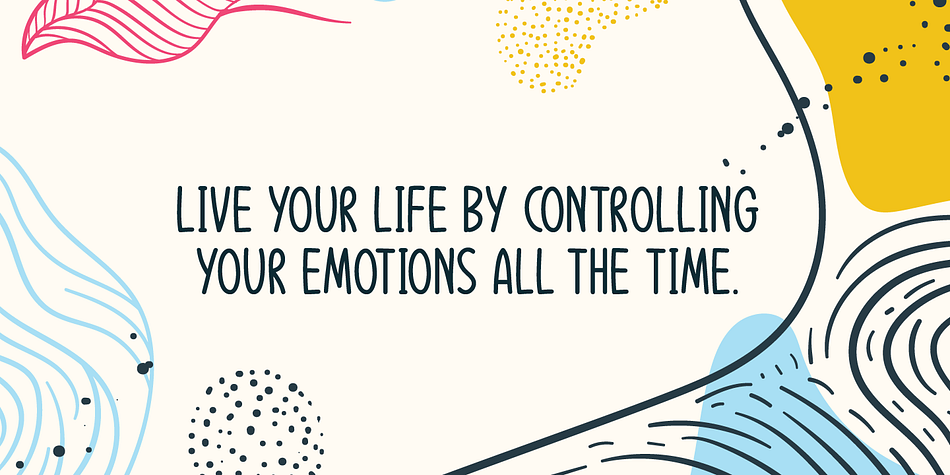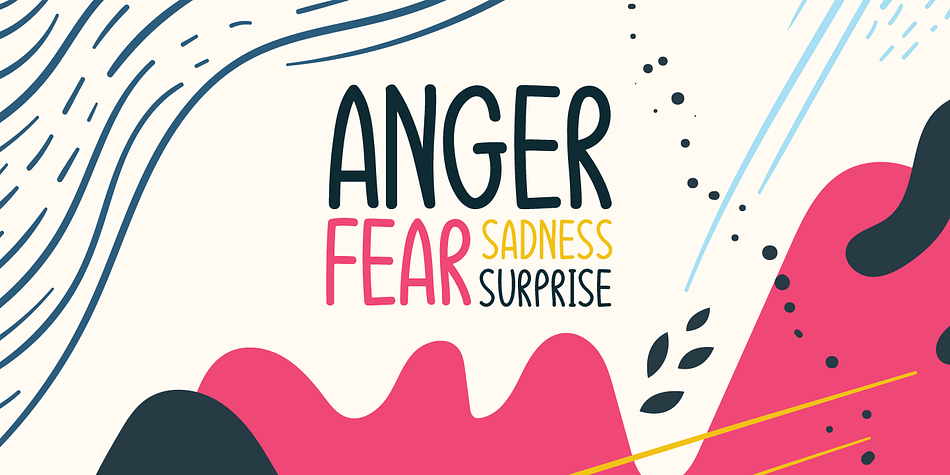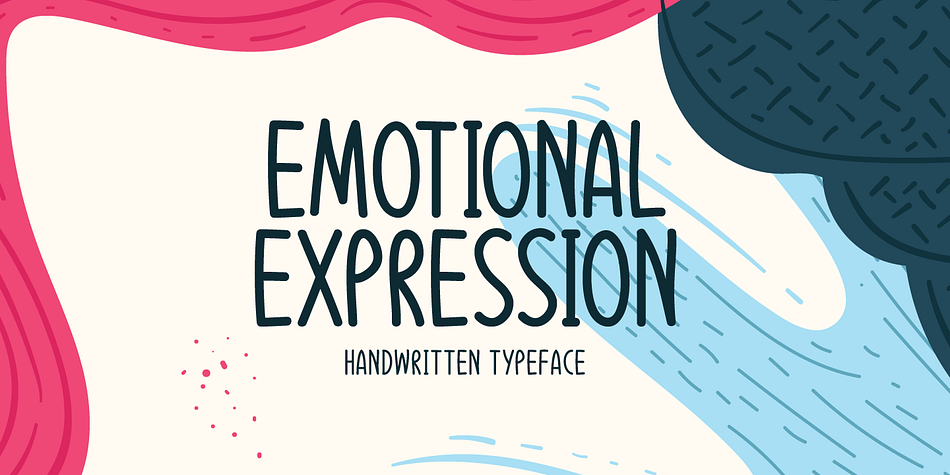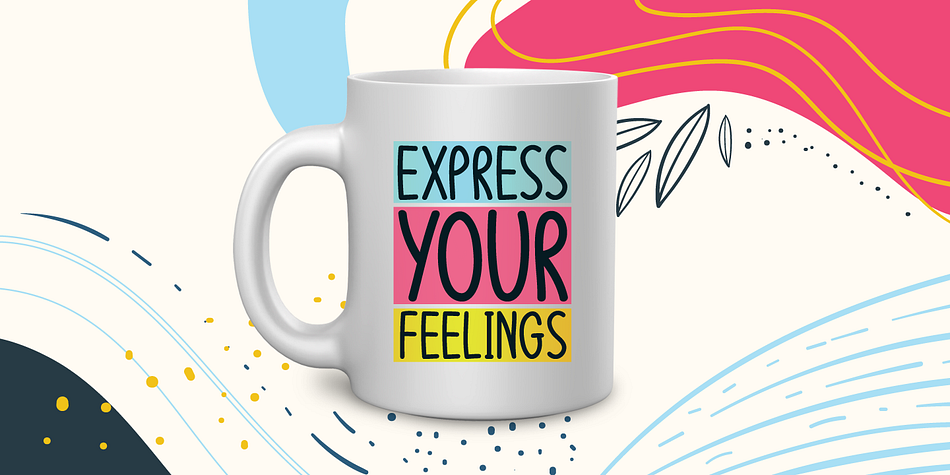
Designed by Md. Shohail Bhuiyan, Emotional Expression is a hand display and hand drawn font family published by Seemly Fonts.
Emotional Expression is a cute and simple lettered handwritten font. It can easily be matched to an incredibly large set of projects, so add it to your creative ideas and notice how it makes them stand out!